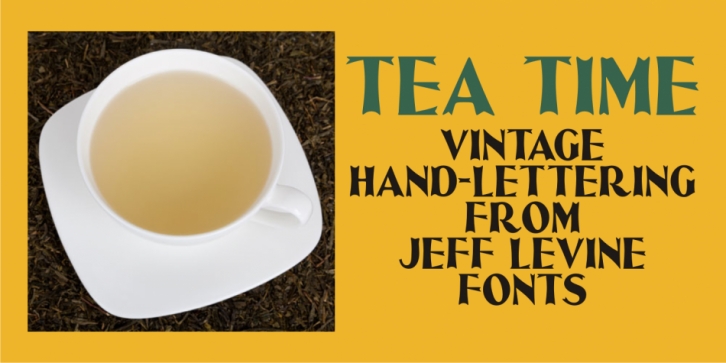
Tea Time JNL is a art nouveau font  published by Jeff Levine Fonts.
Tea Time JNL was inspired by the hand lettering on the 1931 sheet music for “When I Take My Sugar to Teaâ€